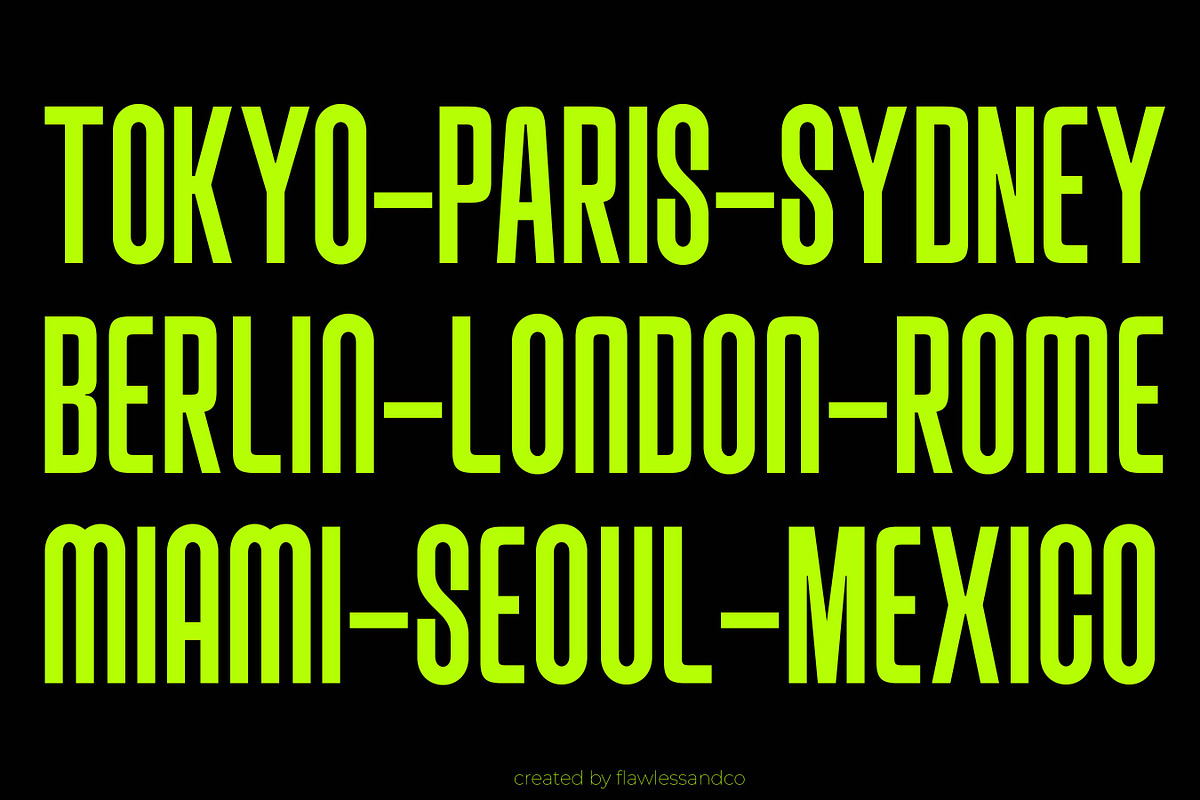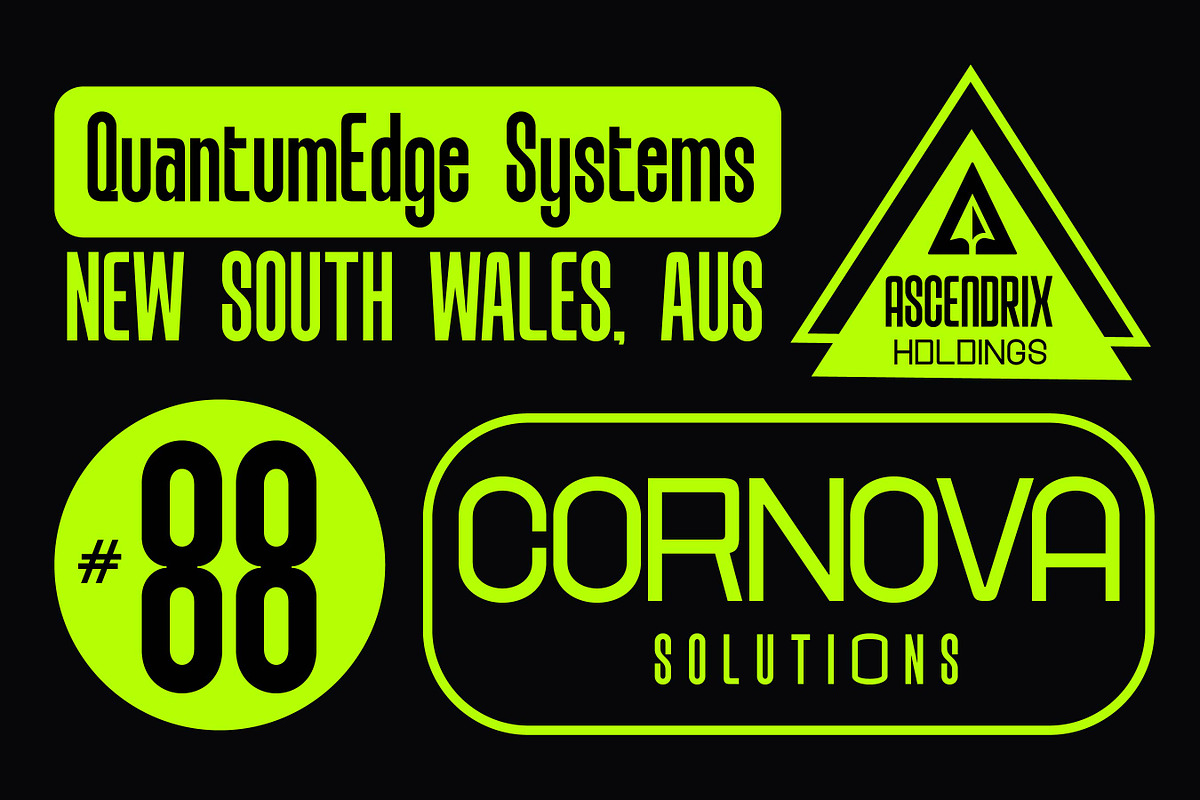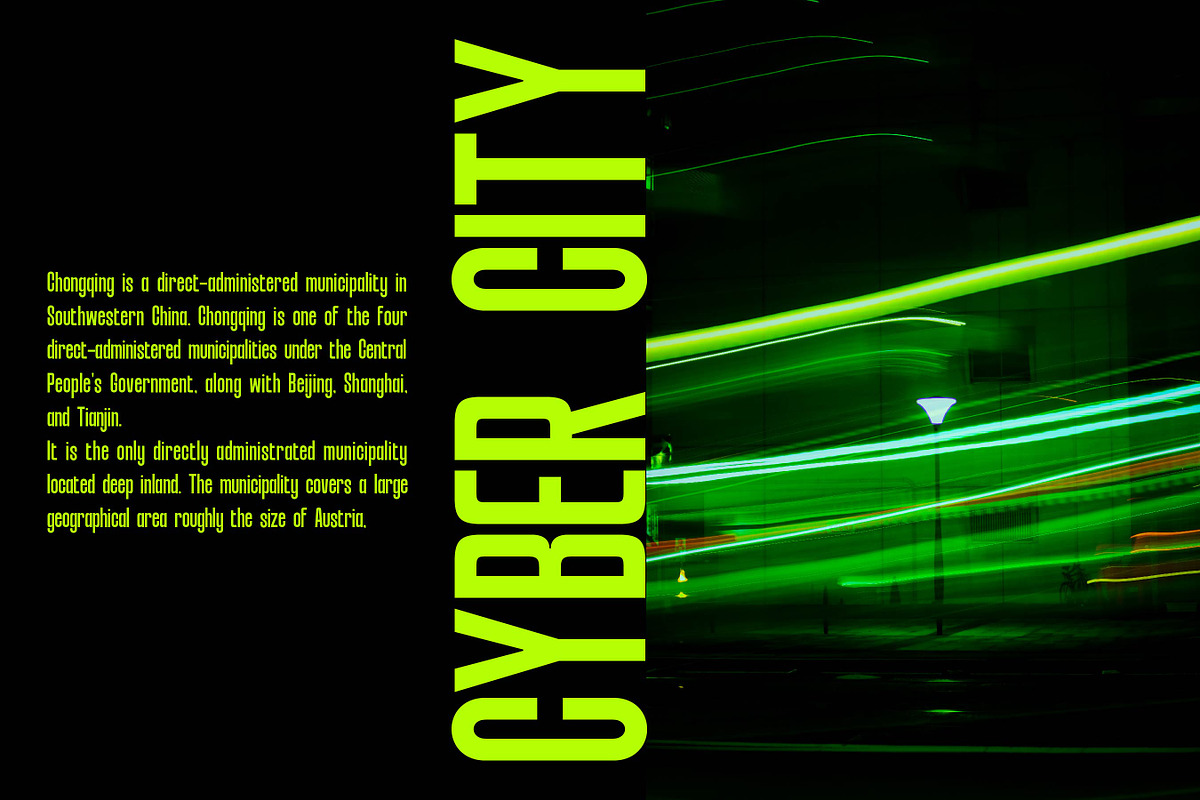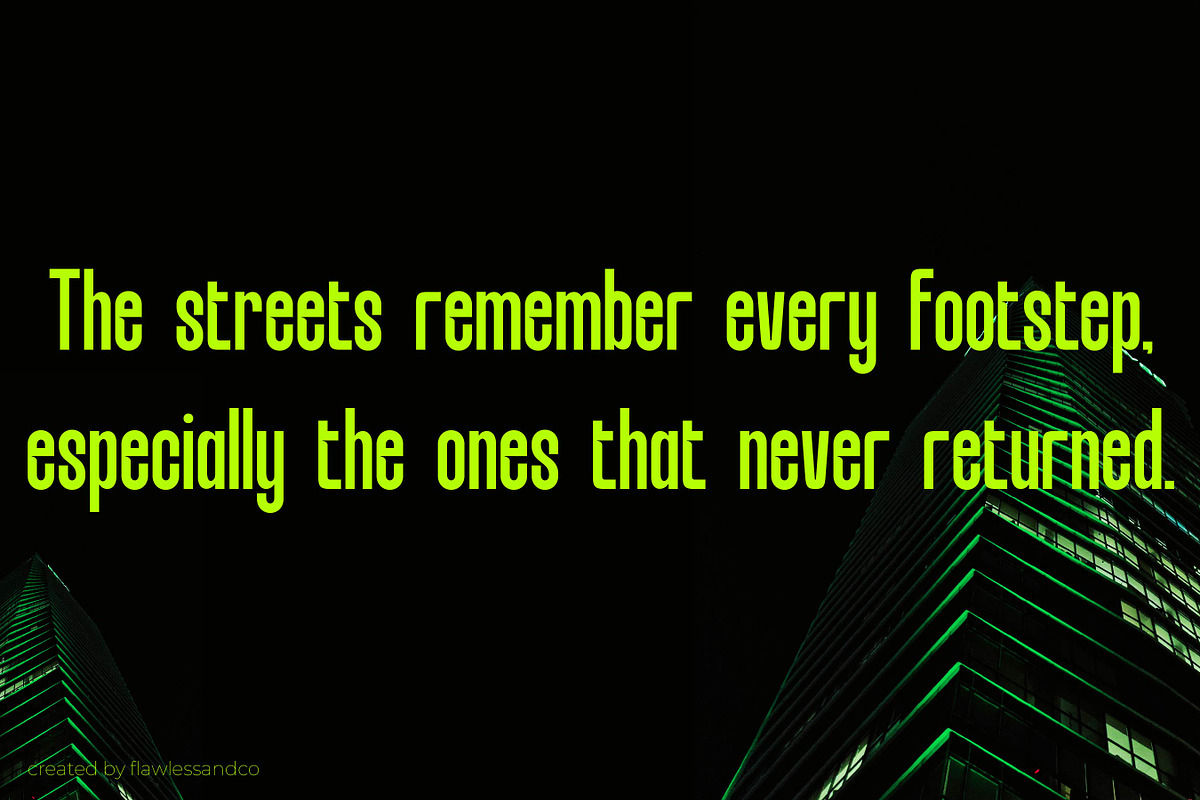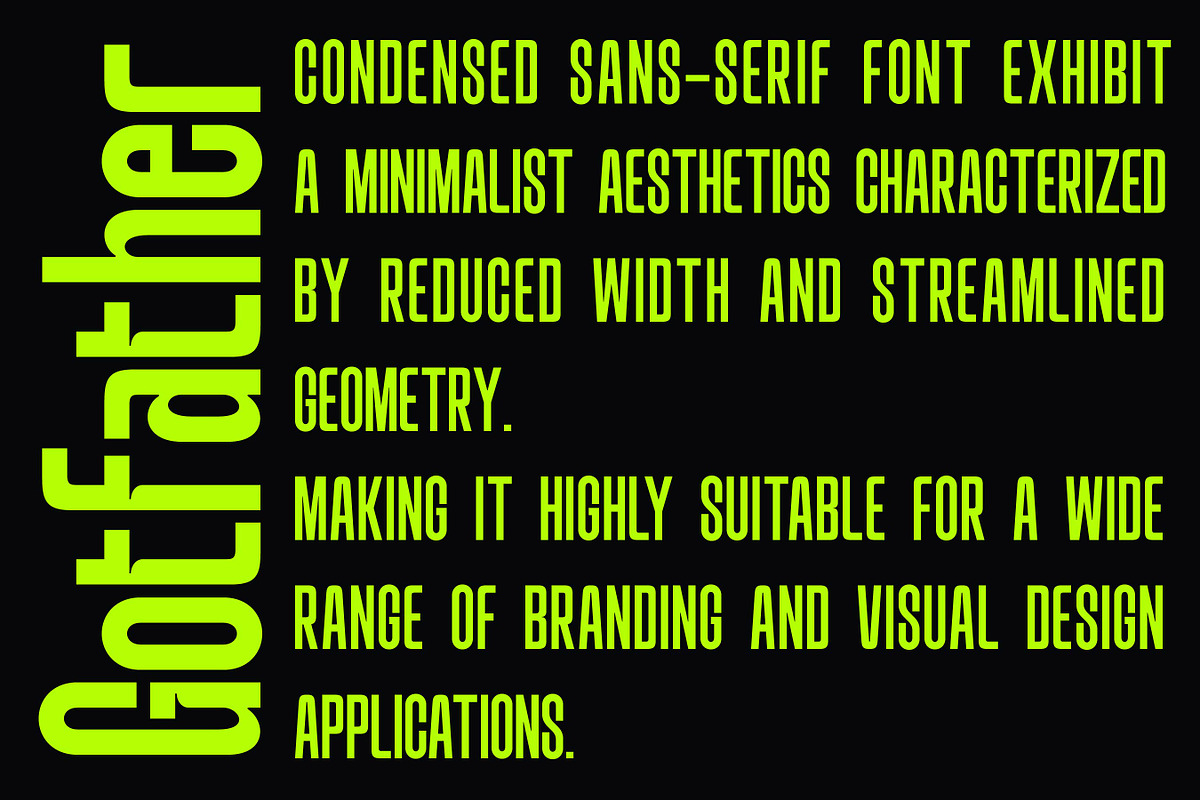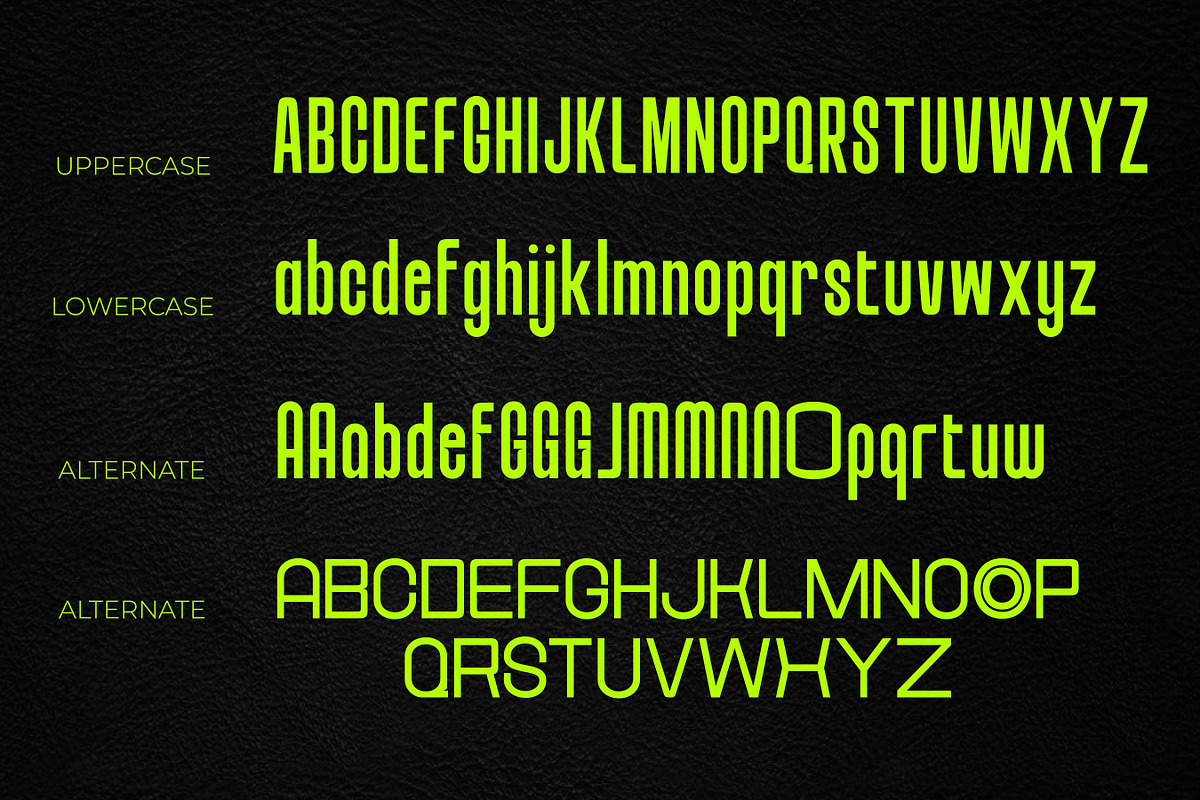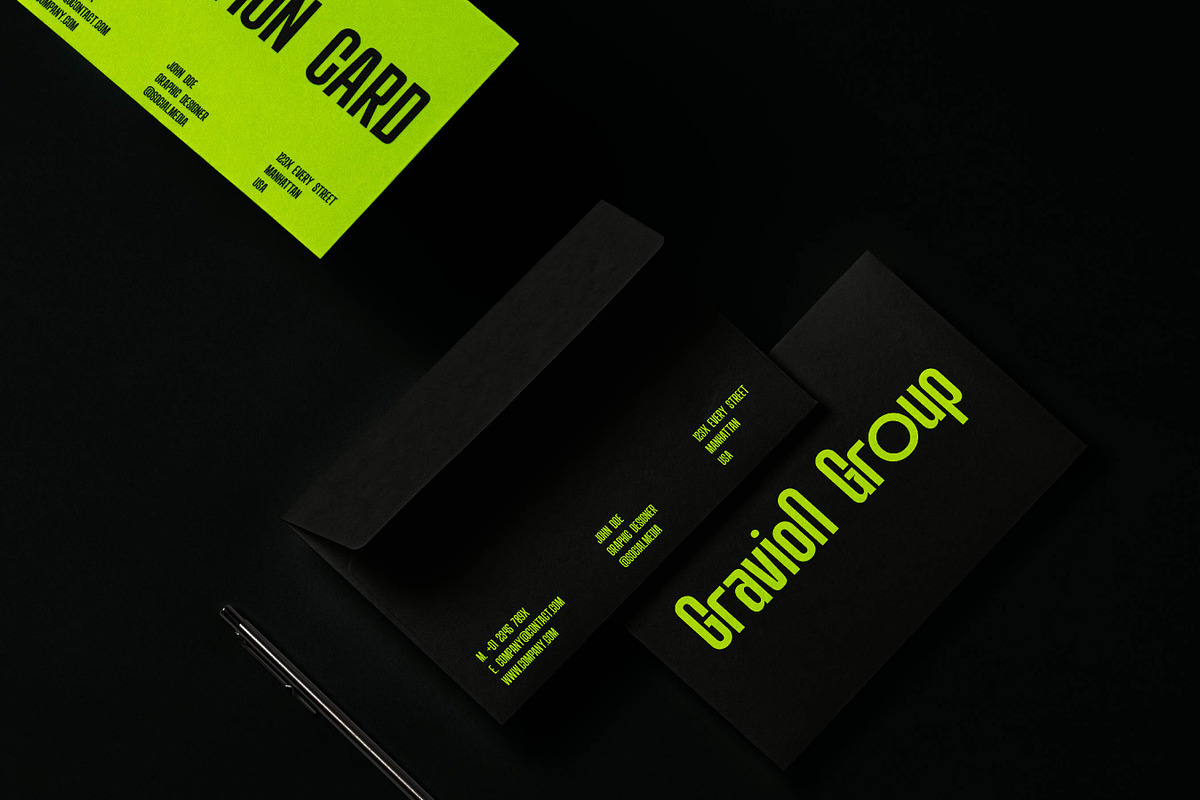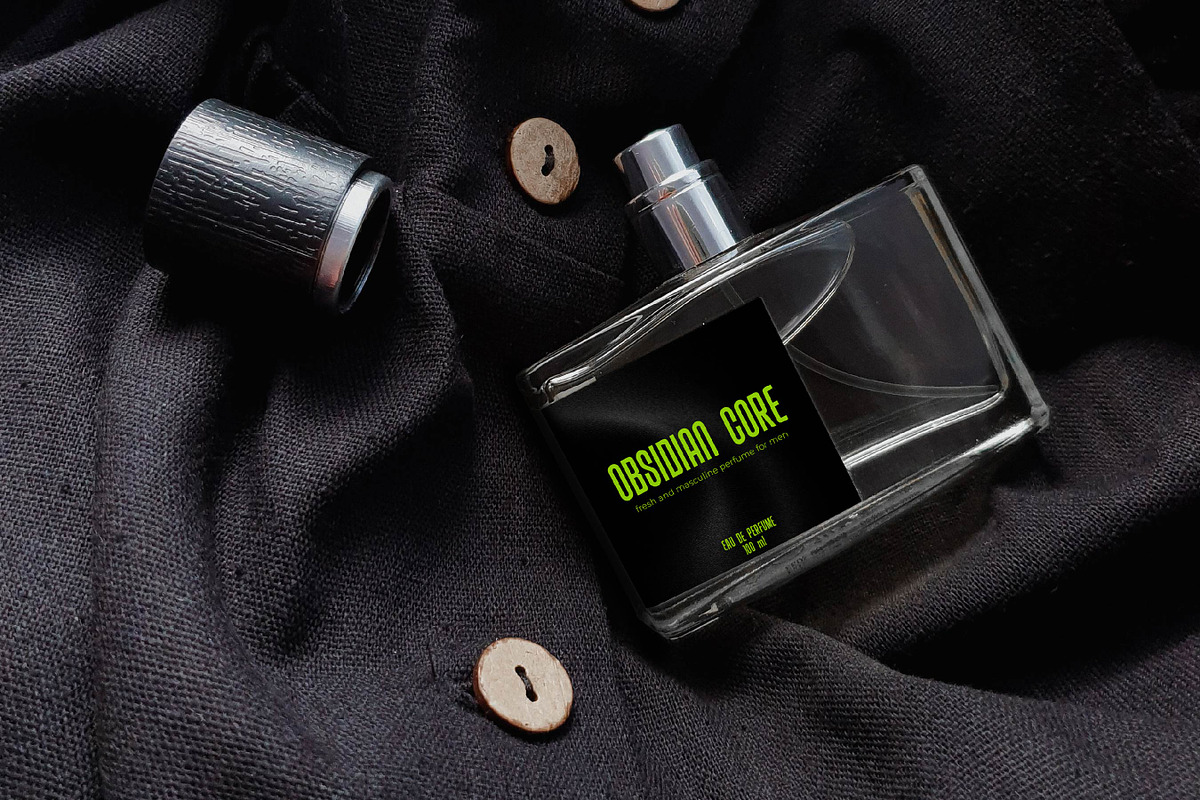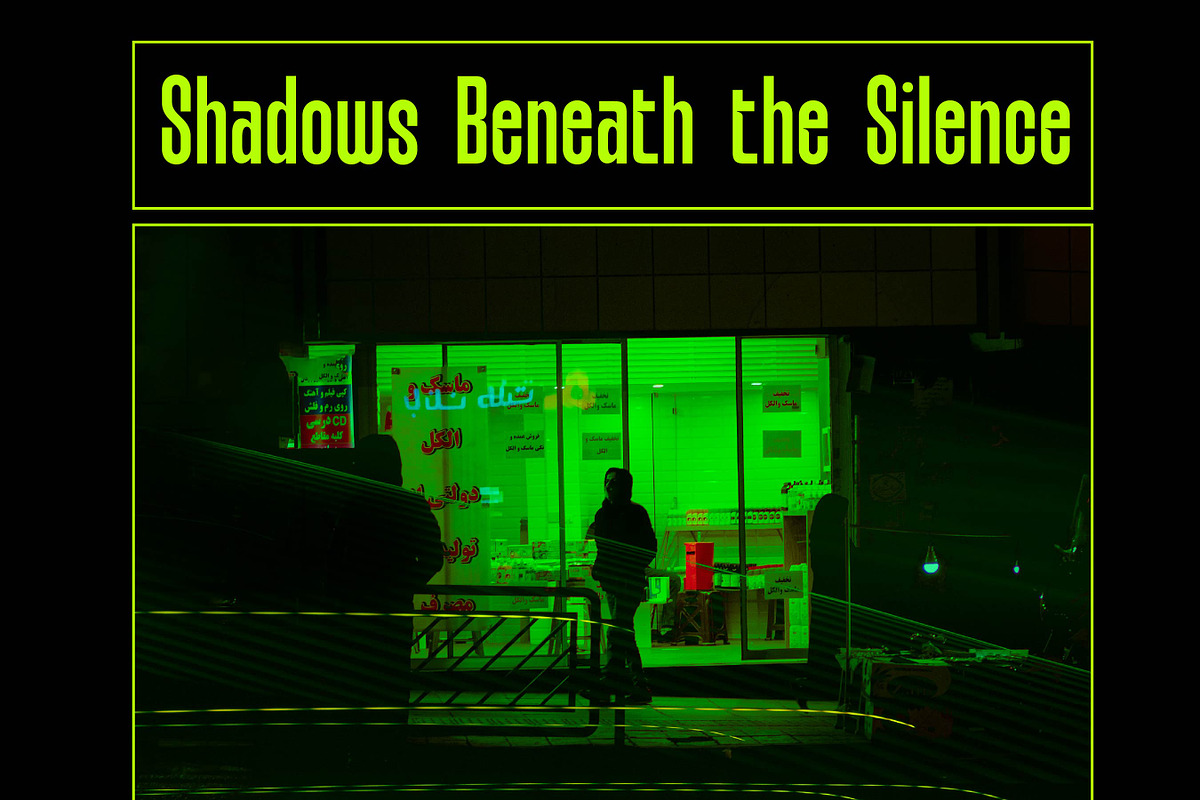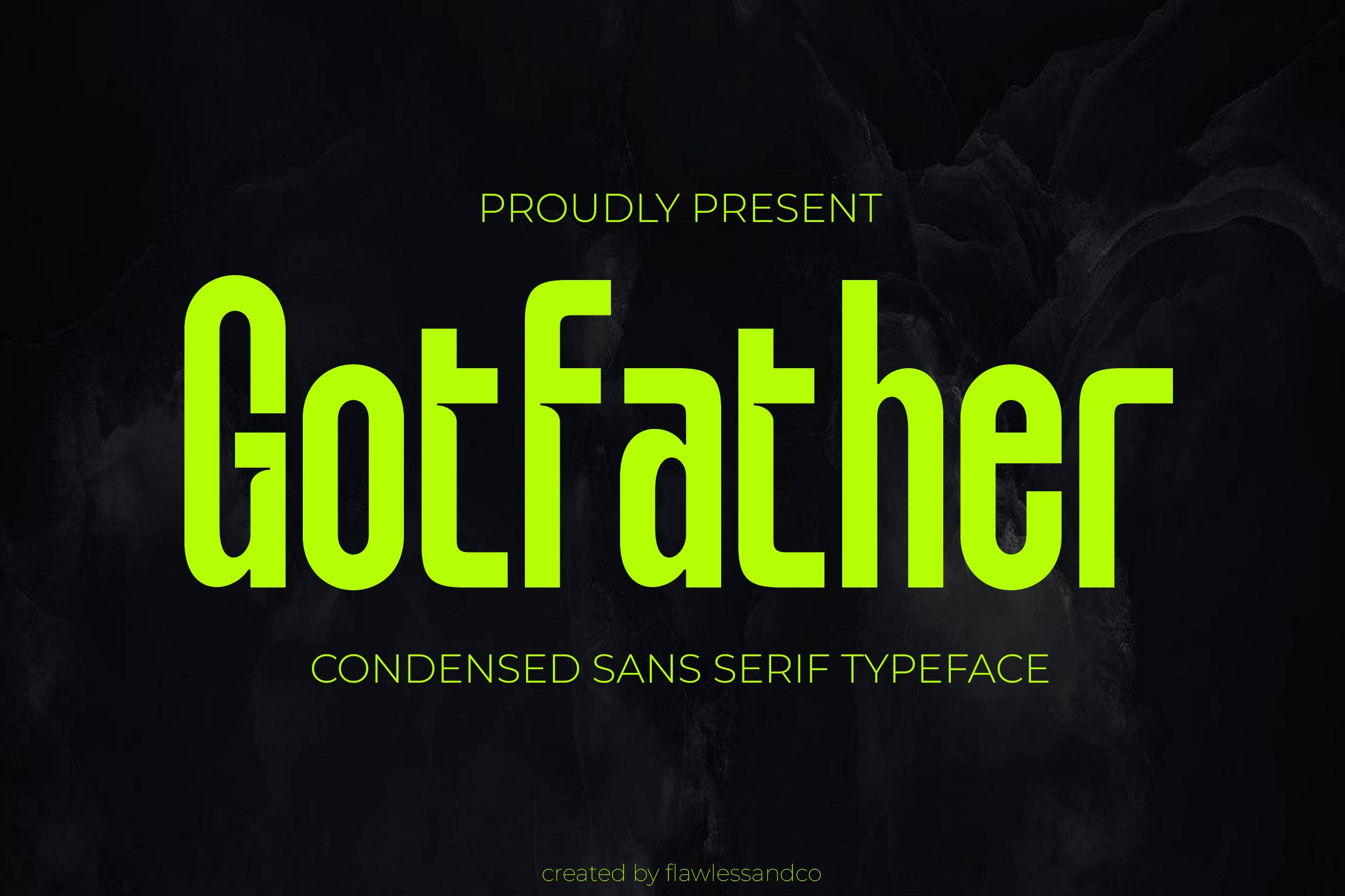
Gotfather -Condensed Sans Serif Font
GOTFATHER – Bold Condensed Sans Serif Typeface
GOTFATHER is a bold condensed sans serif typeface that brings a modern, futuristic attitude with sharp precision and sleek structure. Designed to make a striking impact, GOTFATHER stands tall with its ultra-tight spacing, clean lines, and confident personality. Inspired by urban style, tech visuals, and strong editorial layouts, GOTFATHER is perfect for creating standout headlines, innovative branding, and statement logo designs. Its condensed structure allows you to maximize space without sacrificing style, making it ideal for both digital and print use. Whether you’re designing posters, apparel, album covers, or high-impact ads, GOTFATHER gives your message a bold, uncompromising voice.
- All Caps Font
Make your design speak with power and precision — GOTFATHER is here to lead the visual game.
Who Should Use Bold Condensed Sans Serif Font GOTFATHER?
GOTFATHER is made for designers, creatives, and brands who want to make a bold, futuristic impression.
This font is perfect for:
- Logo designers seeking strong, space-efficient typography
- Branding projects that demand a modern and tech-savvy look
- Editorial and magazine layouts with bold headlines
- Music and entertainment graphics that need attitude
- Apparel, streetwear, and urban-themed merchandise
- Posters, flyers, and event promos with high visual impact
If your project needs sharp style and confident character, GOTFATHER is your go-to font.
A Must-Have Font for Brand Creators and Designers
GOTFATHER is an essential tool for modern brand builders and creative professionals. Its bold condensed form delivers maximum impact with minimal space — perfect for logos, branding systems, packaging, and standout visuals. Whether you're shaping a cutting-edge tech identity or designing bold promotional content, GOTFATHER helps your brand speak loud, clear, and confidently.
Why Choose GOTFATHER for Brand Projects?
GOTFATHER offers a striking balance of boldness and precision, making it a powerful asset for brand-driven design. Its condensed structure allows for strong typographic hierarchy without taking up too much space — ideal for logos, headlines, and packaging. Here’s why GOTFATHER is the right choice for your next branding project:
- Maximized Impact with minimal width — perfect for tight layouts
- Modern & Professional Look that elevates your brand presence
- Versatile Application across digital, print, and packaging mediums
- Unique Letterforms that create a memorable visual identity
With GOTFATHER, your brand will stand tall, sharp, and unforgettable.
Suitable For:
- Brand identities and bold logo design
- Sportswear, tech, and streetwear branding
- Posters, banners, and impactful advertising
- Editorial layouts and magazine titles
- Product packaging and merchandise design
- Social media graphics and digital campaigns
- Gaming, app, and UI/UX interfaces
- Album covers, film titles, and creative headlines